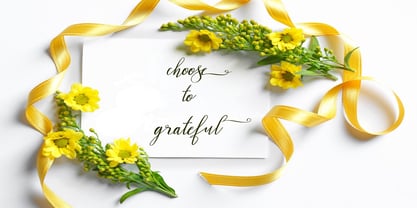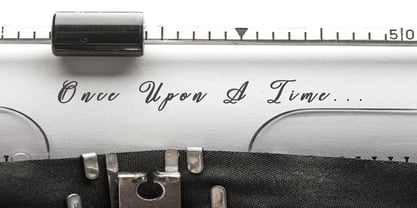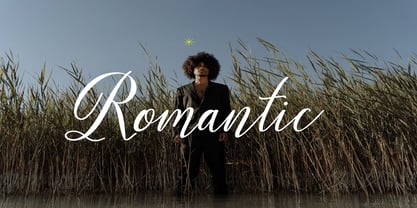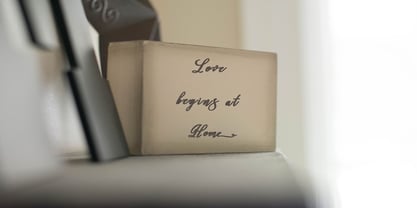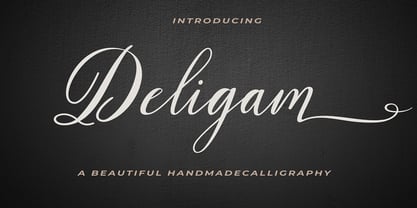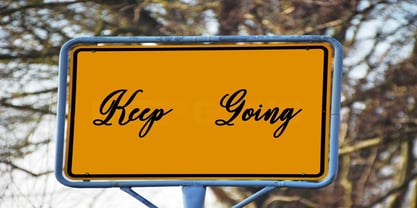
Deligam
by Dream Font
The Deligam Font Family was designed by Mark Jamra and published by Dream Font. Deligam contains 1 styles.
Deligam is a romantic and elegant script font that captures the essence of love and warmth. With its graceful curves and delicate strokes, Lovingly is perfect for wedding invitations, love letters, and any project that requires a touch of romance. Let Deligam add a touch of enchantment to your designs.